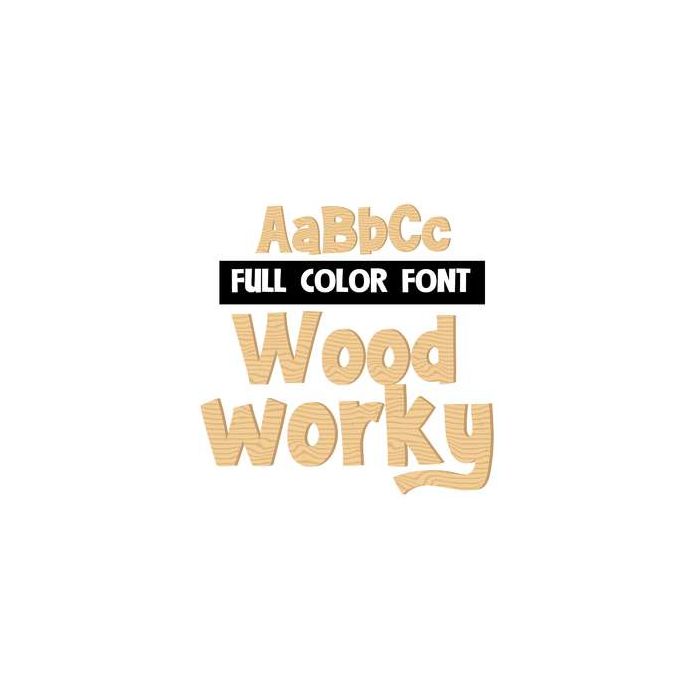
This masculine font is filled with wood grain. This font works best for titles, displays, posters and more. Please note color fonts will show as black in non compatible programs. This font type is compatible with Silhouette Studio.